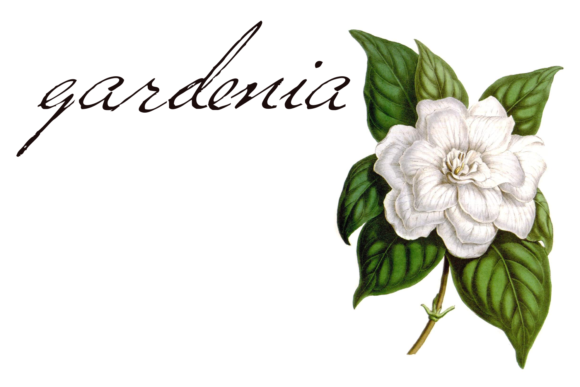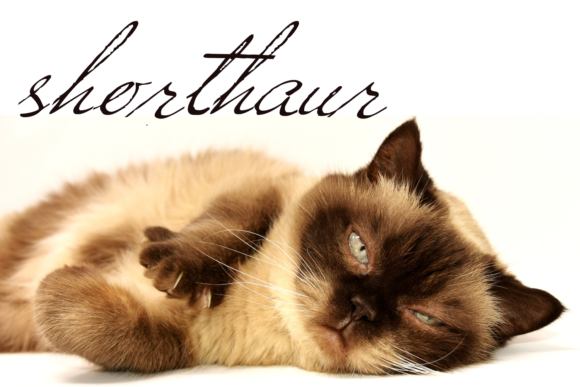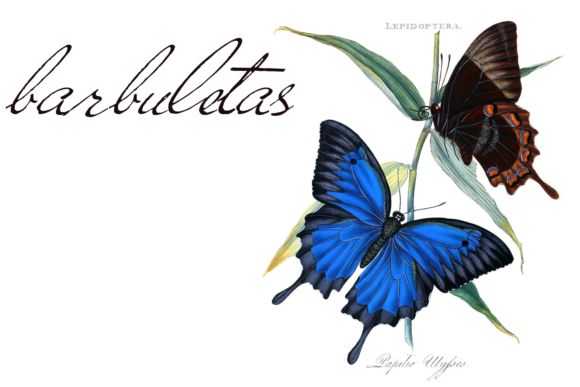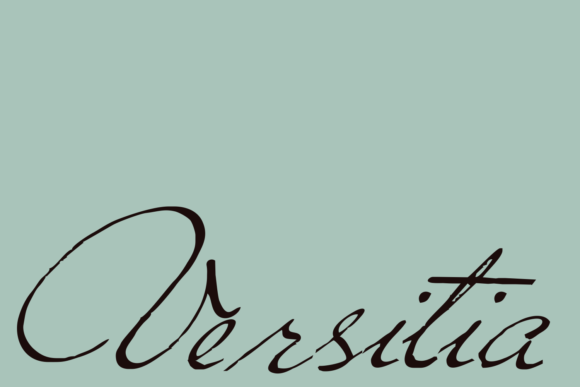
Versitia Font
About Versitia Font
Versitia is a beautiful, youthful script font. With a handwritten appeal, this font presents some casualness that can add some sincerity to your designs.